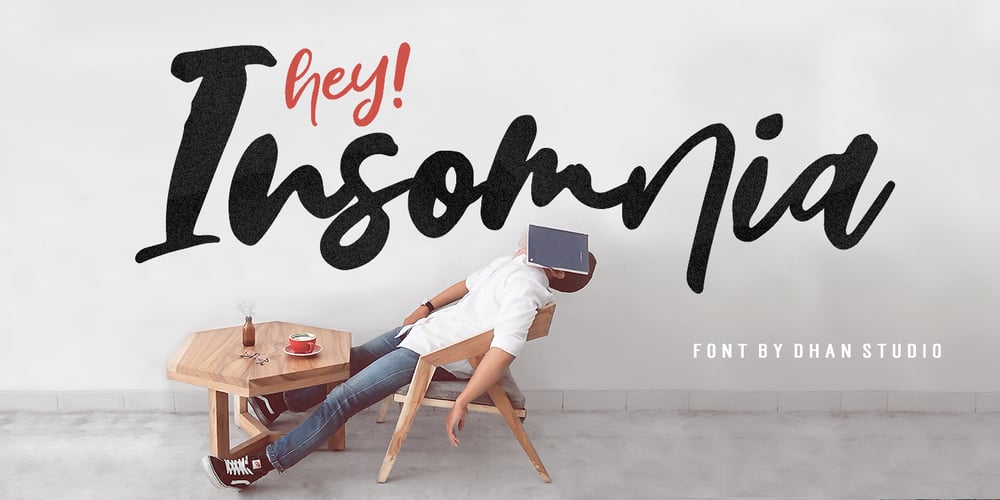
Hey Insomnia
Hey Insomnia font
Hey Insomnia Font Family was designed by Mauli Zari and published by Dhan Studio. Hey Insomnia contains 1 styles and family package options. Hey Insomnia is a modern handwriting, organic style, dynamic and energetic and has a ligature, also has an a-z alternative. Can be used for various purposes such as titles, signatures, logos, correspondence, letterhead, signage, labels, bulletins, posters, badges, etc.